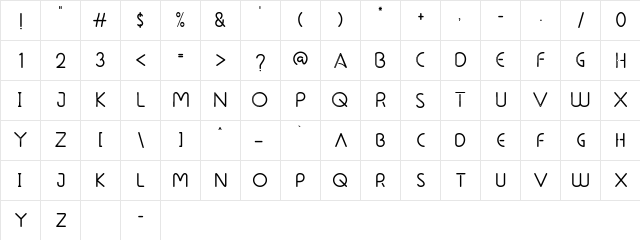
Runlion Regular
Design Context for Runlion Typeface
Runlion takes a measured approach to typography — its balanced proportions and neutral character make it a reliable workhorse for both digital and print work.